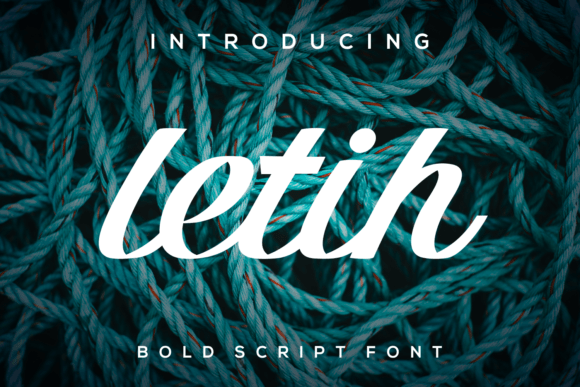
Embark on a typographic journey with Letih Font, a captivating script font that echoes the strokes of a calligrapher's pen. Its strokes dance across the page, leaving a trail of elegance and sophistication. This font is more than just a collection of letters; it's an expression of art, a testament to the beauty of written words.
With Letih Font, your designs will transcend the ordinary and take on a life of their own. Its free-flowing curves and dynamic baseline create a sense of movement, drawing the eyes deeper into your projects. Let your words dance off the page, capturing attention and igniting imaginations.
Letih Font is a versatile chameleon, seamlessly adapting to a myriad of design projects. Create logos that radiate personality, branding that exudes charm, and social media posts that pop with flair. Its versatility knows no bounds, whether you're designing wedding invitations, fashion magazines, or eye-catching posters.
Unleash your creativity and let Letih Font transform your projects into masterpieces. Its endless possibilities will ignite your passion for design, allowing you to create breathtaking visuals that leave a lasting impression. Embrace the beauty of handwritten script and elevate your work to new heights.